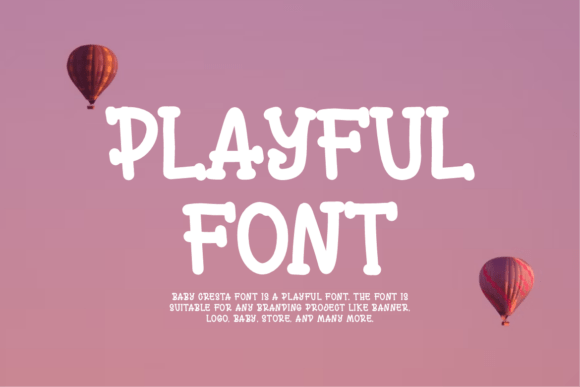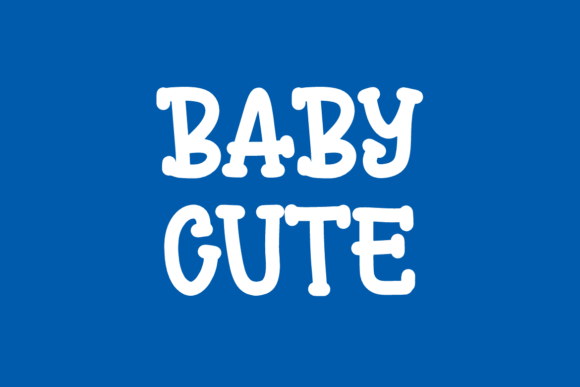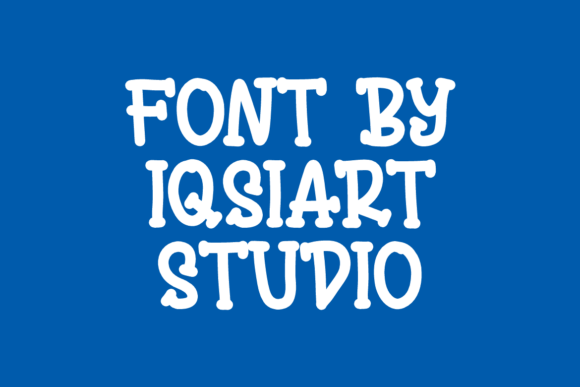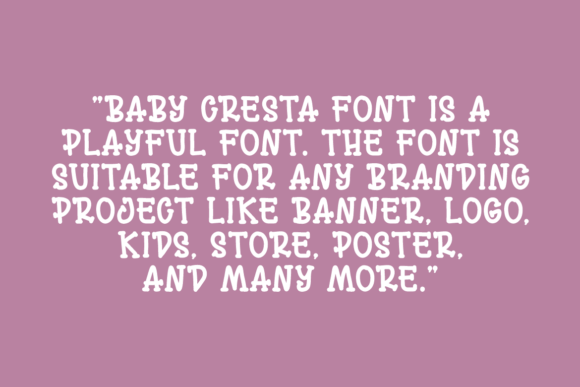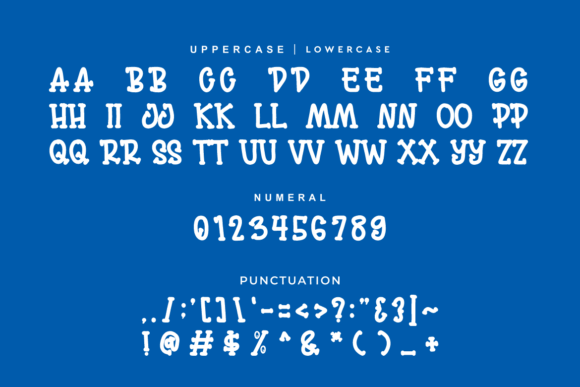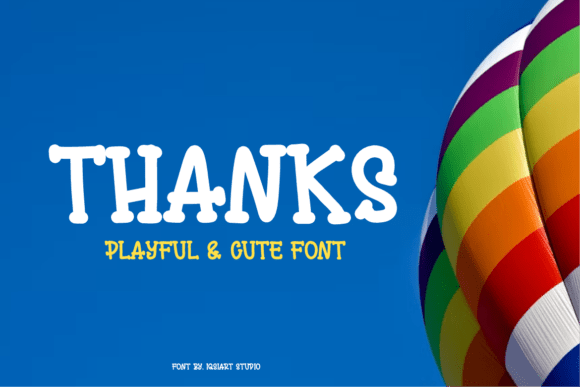
Baby Cresta Font: The Fun and Quirky Display Font for Creative Projects
Baby Cresta is a fun and quirky display font that can add a touch of playfulness to your creative projects. With its unique and eye-catching design, this font is perfect for designers and crafters looking to make a statement. In this article, we’ll take a closer look at Baby Cresta and explore how you can use it to take your designs to the next level.
What is Baby Cresta Font?
Baby Cresta is a display font that features bold, rounded letters with a childlike charm. The font is designed to be highly legible and versatile, making it perfect for use in a variety of creative projects, from posters and flyers to logos and branding materials. With its fun and quirky design, Baby Cresta is sure to grab attention and leave a lasting impression.
Key Features of Baby Cresta Font
• Unique and eye-catching design: Baby Cresta features a one-of-a-kind design that’s sure to stand out from the crowd.
• Highly legible: The font is designed to be easy to read, even at large sizes.
• Versatile: Baby Cresta can be used in a variety of creative projects, from digital designs to print materials.
• Fun and quirky: The font’s playful design makes it perfect for projects that require a touch of whimsy.
How to Use Baby Cresta Font in Your Designs
Baby Cresta is a versatile font that can be used in a variety of creative projects. Here are a few ideas to get you started:
• Posters and flyers: Use Baby Cresta to create eye-catching posters and flyers that grab attention.
• Logos and branding materials: Add a touch of playfulness to your logos and branding materials with Baby Cresta.
• Digital designs: Use Baby Cresta in your digital designs, such as social media graphics and website headers.
• Crafting projects: Baby Cresta can also be used in crafting projects, such as handmade cards and scrapbooking.
Tips for Getting the Most Out of Baby Cresta Font
Here are a few tips for getting the most out of Baby Cresta:
• Experiment with different colors: Baby Cresta looks great in a variety of colors, so don’t be afraid to experiment and find the perfect hue for your project.
• Use it sparingly: While Baby Cresta is a fun and quirky font, it can be overwhelming if used too much. Use it sparingly to create a focal point in your design.
• Pair it with other fonts: Baby Cresta can be paired with other fonts to create a unique and interesting design.
Baby Cresta is a fun and quirky display font that can add a touch of playfulness to your creative projects. With its unique and eye-catching design, this font is perfect for designers and crafters looking to make a statement. Whether you’re creating posters, logos, or digital designs, Baby Cresta is sure to grab attention and leave a lasting impression. So why not give it a try and see the amazing results for yourself?